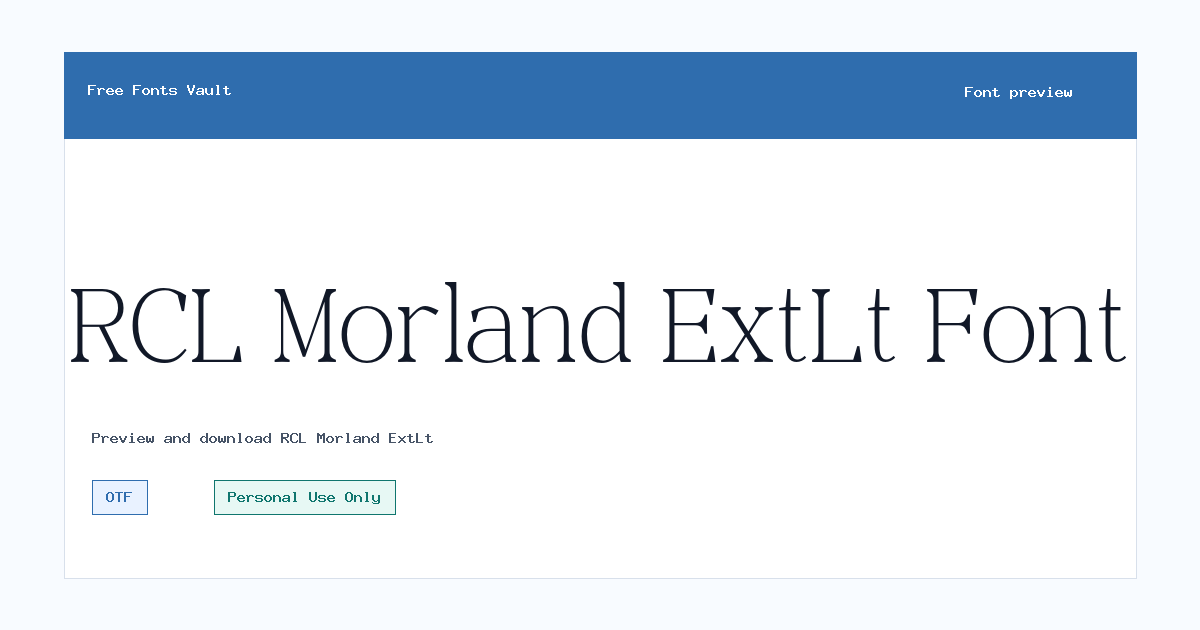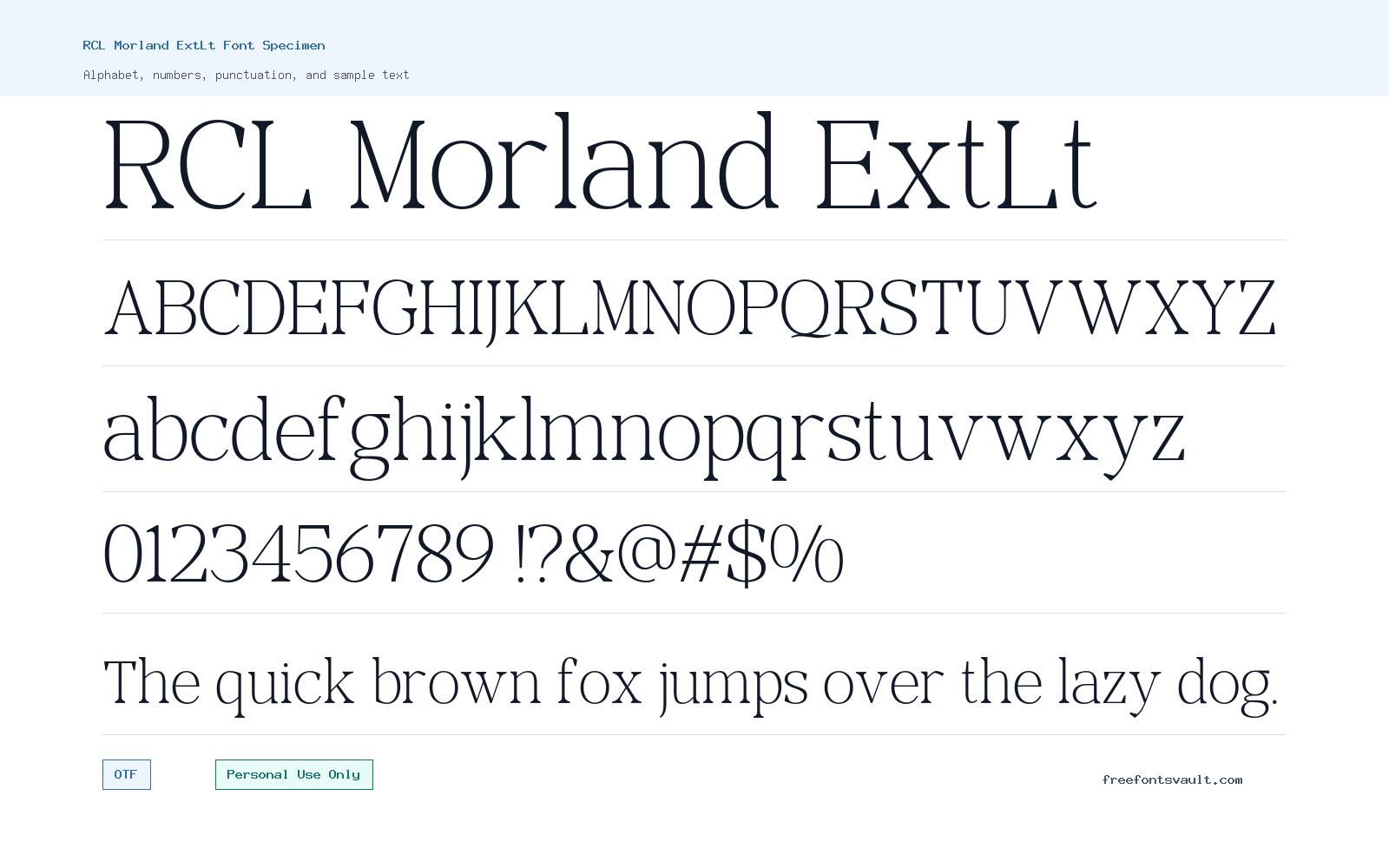
RCL Morland ExtLt
• Designer Bakhrudin Ja'far
RCL Morland ExtLt is an extra-light serif font style from the Morland family, designed for quiet, refined typography where thin strokes and generous spacing can stand out.
About RCL Morland ExtLt Font
RCL Morland ExtLt has a light, delicate serif look that works best when the design has enough space for its fine details to breathe. The regular style gives text a clean upright rhythm, while the italic style adds a softer, more expressive angle for emphasis, short quotes, subheadings, or decorative text. Because this is an extra-light weight, it is better suited to larger sizes than dense body copy. It can look elegant in headlines, cover layouts, invitations, branding drafts, and editorial-style compositions where the text does not need to carry heavy reading loads.
• Best suited to display typography, short text, and spacious layouts
• Elegant headlines, invitations, title cards, and editorial display text
• Logo concepts, mood boards, social graphics, and personal design experiments
The designer is listed as Bakhrudin Ja'far, with Room Space Creative Lab linked as the designer website.
For best results, use RCL Morland ExtLt at medium to large sizes and keep the background simple. Thin serif strokes need contrast and space, so avoid using this weight for long paragraphs, small captions, or low-resolution graphics. If you need emphasis, try the italic style for a single phrase rather than a full block of text. When pairing it, choose a readable sans serif or sturdy serif for supporting copy so the extra-light style remains the visual accent.
Is this font good for body text?
It is not the best choice for long body text. The extra-light weight is better for larger display text, short headings, quotes, and decorative typography.
Who designed RCL Morland ExtLt?
The designer is listed as Bakhrudin Ja'far. The linked designer website is Room Space Creative Lab.